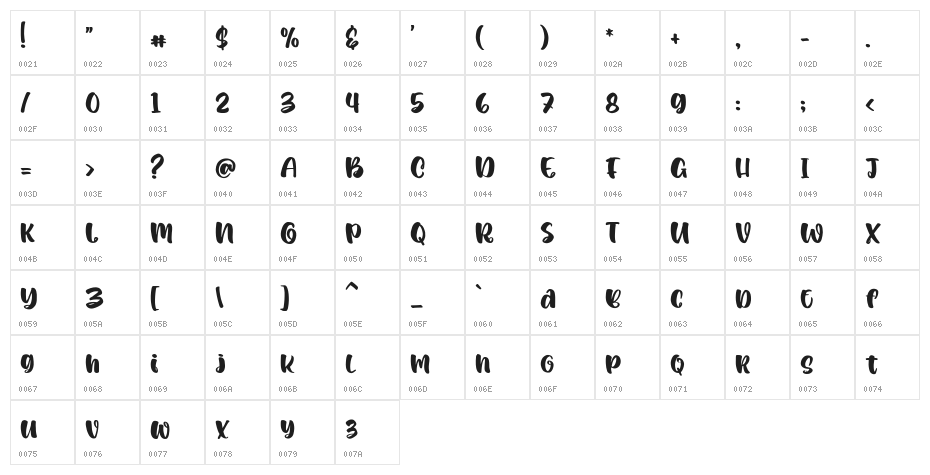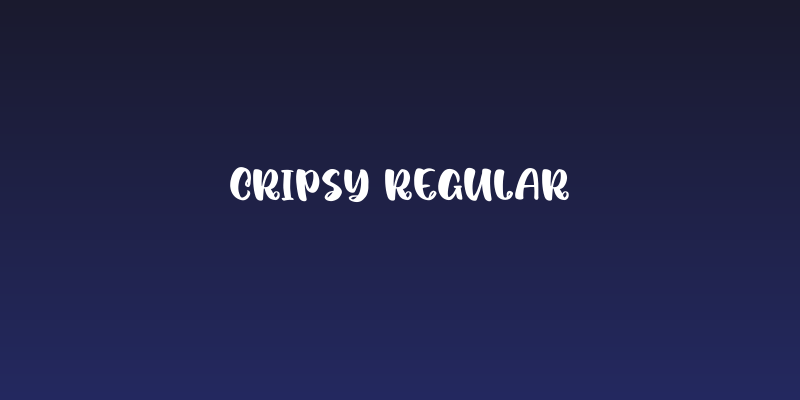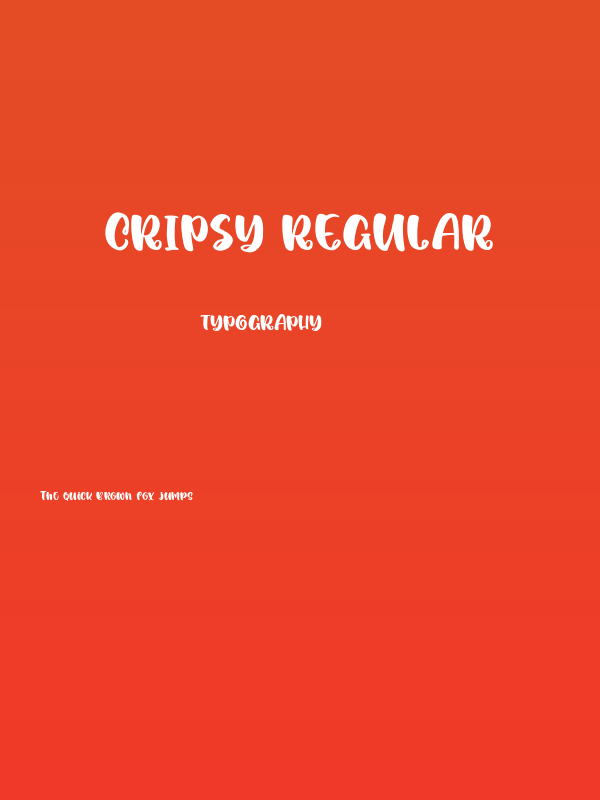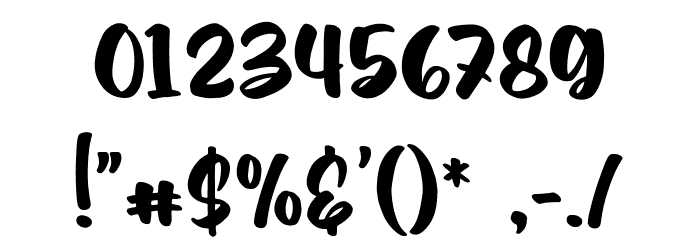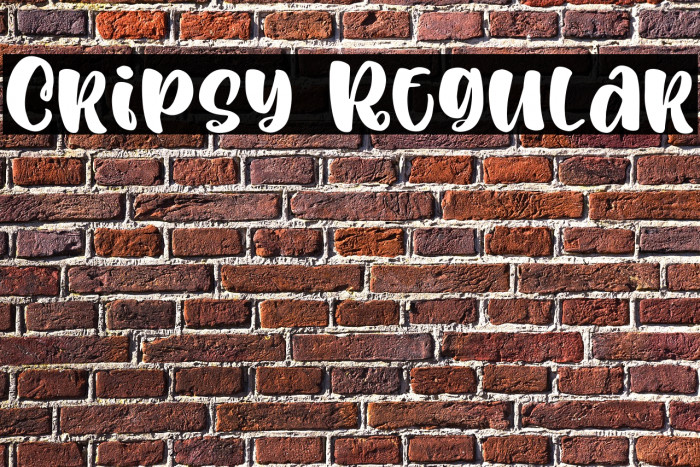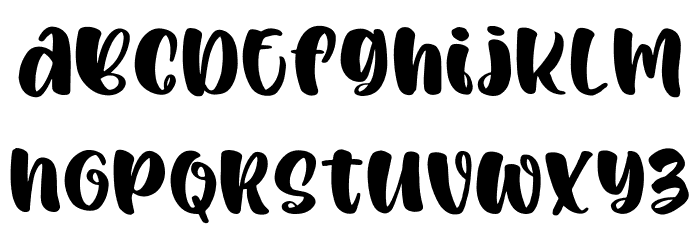
Cripsy Regular Font
Cripsy Regular Description
This font features a playful and bold script style with a handwritten feel. The characters are rounded and have a whimsical touch, making them stand out with their thick strokes and slight curls at the ends. The uppercase and lowercase letters maintain a consistent flow, while the numbers and special characters complement the overall design with their bold and expressive forms. This font exudes a sense of fun and creativity, perfect for projects that require a lively and engaging typeface.
| Proposed Projects | Ideal for greeting cards, playful branding, children's books, and creative posters. |